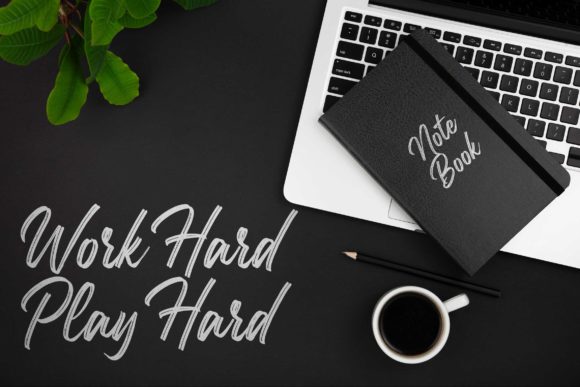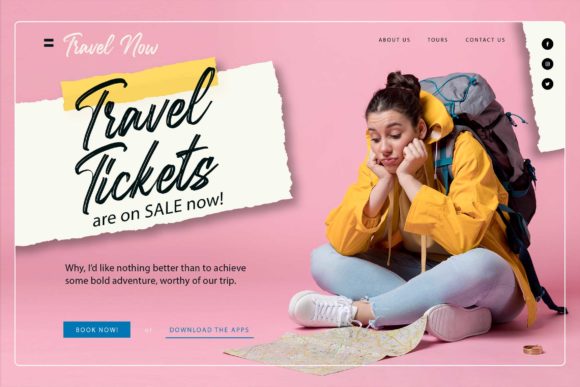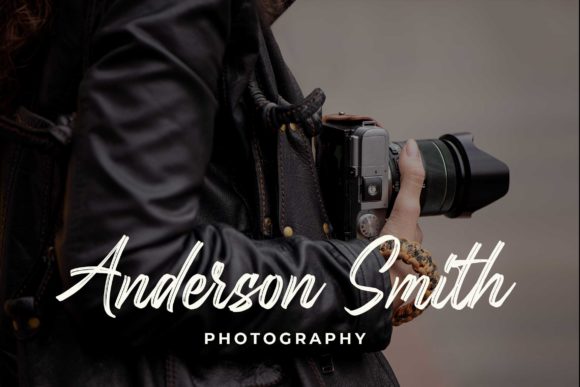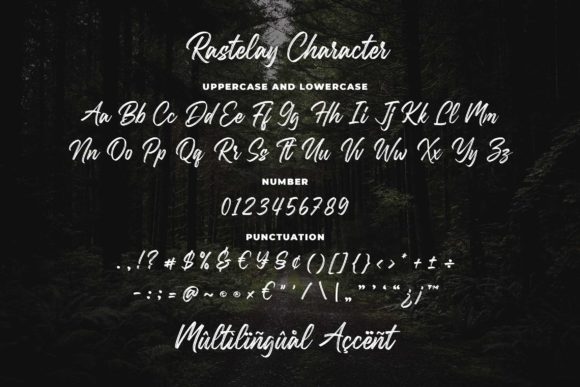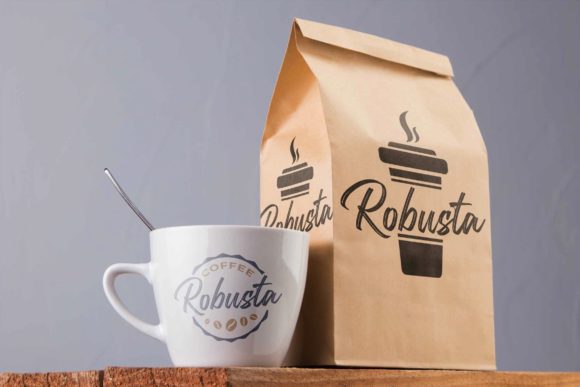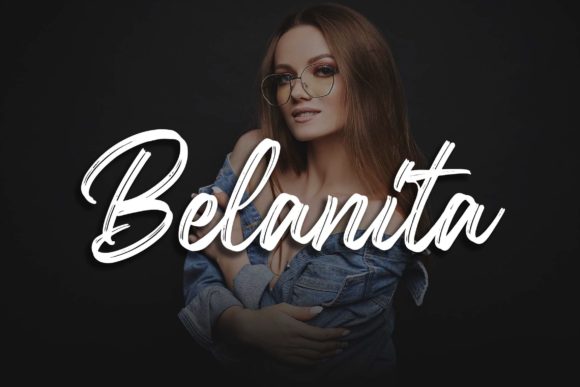
Introduction to Rastelay Font
Have you ever been working on a creative project and suddenly, you need a specific font to make it pop? It’s like the missing puzzle piece that brings everything together. I’ve been there, and I know how frustrating it can be when you can’t find the right font to match your design vision. That’s why I’m excited to share with you the Rastelay Font, a stunning brush handwritten font that’s perfect for adding a personal touch to your work.
What sets the Rastelay Font apart is its ability to work seamlessly with a transparent background, allowing you to create beautiful, eye-catching designs that really stand out. So, if you’re looking for a reliable and versatile font to add some personality to your work, keep reading to learn more about the Rastelay Font.
Key Features of Rastelay Font
- High-quality, unique design ideal for creative projects requiring a distinctive look.
- Transparent background option allows for seamless integration into various design elements.
Honest Review: Rastelay Font
I recently came across the Rastelay Font, and I’m excited to share my thoughts on this design resource. With a wide range of applications, from digital art to print materials, this font is a great addition to any creative project.
- High-quality design: The Rastelay Font is well-crafted, with smooth lines and a professional finish.
- ⚠️ Limited font sizes: The Rastelay Font only comes in a few font sizes, which may limit its use in certain applications.
- ⚠️ Limited character set: The font only includes a limited character set, which may not be suitable for languages that require a broader range of characters.
Overall, I’m impressed with the Rastelay Font, and I think it’s a great design resource for designers working on creative projects. While it may have some limitations, the high-quality design and free download make it a worthwhile addition to any design library.
Common Use Cases for Rastelay Font
Rastelay Font is perfect for various creative projects, including graphic design, digital art, and even web design. Its clear lines and modern feel make it suitable for a wide range of applications, from business presentations to personal art projects.
Yes, the Rastelay Font is designed to be a high-quality font, suitable for various creative projects, including print, web, and digital design. It’s optimized for clarity and readability, making it an excellent choice for designers who demand the best.